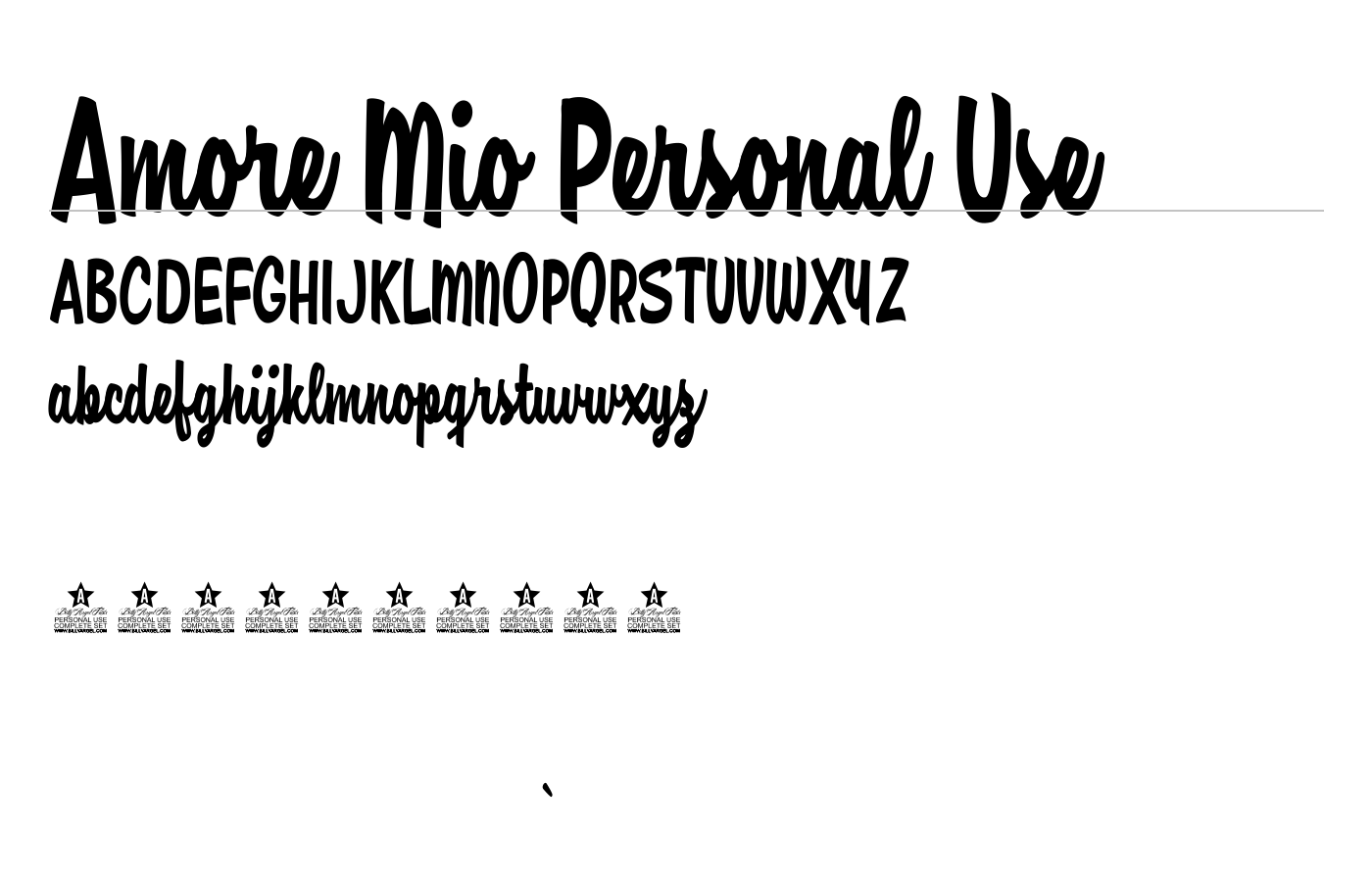
Amore Mio Personal Use is a playful and lively script font with a handwritten feel, featuring bold, slightly condensed letterforms and a high x-height for readability. Its smooth, rounded strokes and casual style make it perfect for creative and informal designs, such as greeting cards, branding for fun and quirky products, or eye-catching headlines that convey warmth and personality. This font works best in contexts where a friendly, approachable vibe is desired.
Amore Mio Personal Use Font
About Amore Mio Personal Use Font